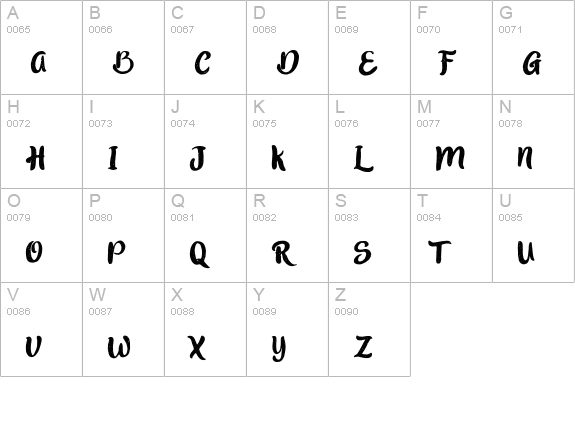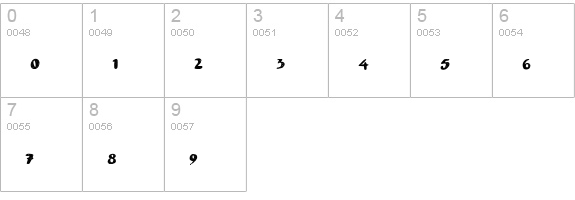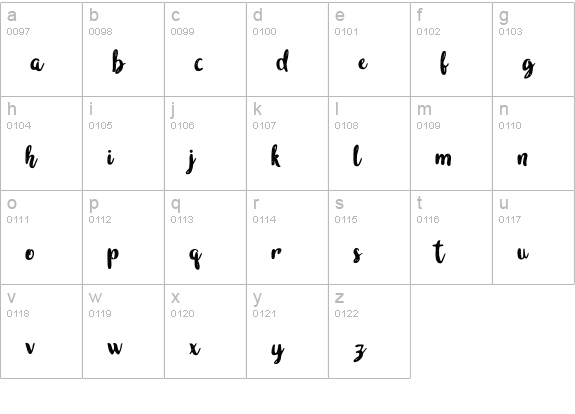
In blossom - Modern Calligraphy Font Details
In blossom - Modern Calligraphy is a free for personal use font in the Script > Brush category, designed by madeDeduk. It has been downloaded 20 times and is available for Windows, Mac and Linux.
In Blossom - Modern Calligraphy font is a stunning typeface that exudes elegance and sophistication. With its delicate, flowing strokes and graceful curves, this font is perfect for adding a touch of beauty to any project. Whether you're designing wedding invitations, branding materials, or social media graphics, In Blossom will bring a touch of refinement to your work.
This font is crafted with precision and attention to detail, making it a standout choice for those who appreciate the art of calligraphy. Its modern twist adds a contemporary edge while still maintaining a classic charm. In Blossom is versatile and can be used for a variety of design purposes.